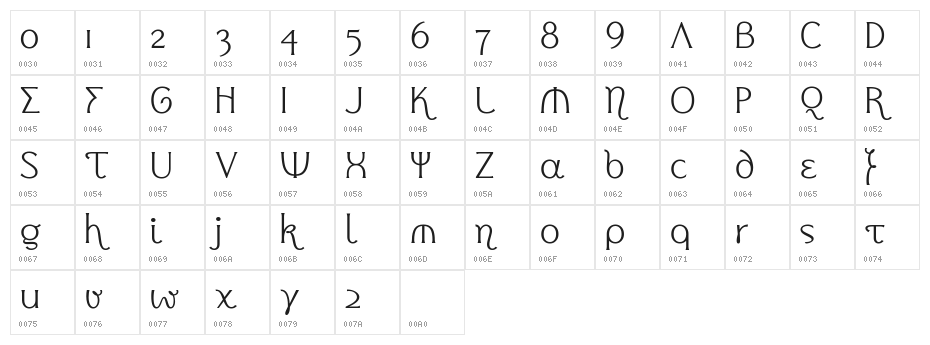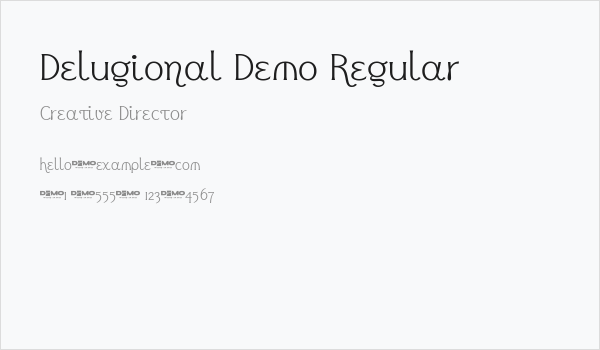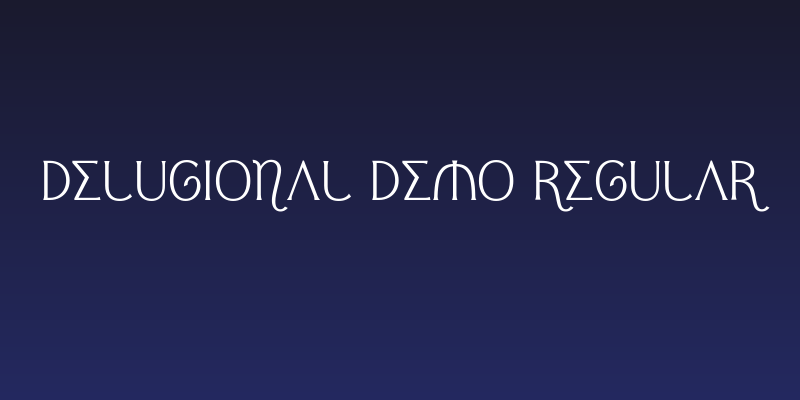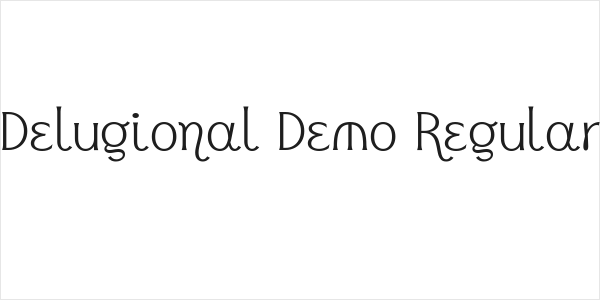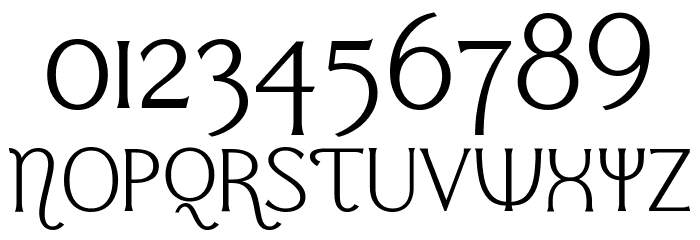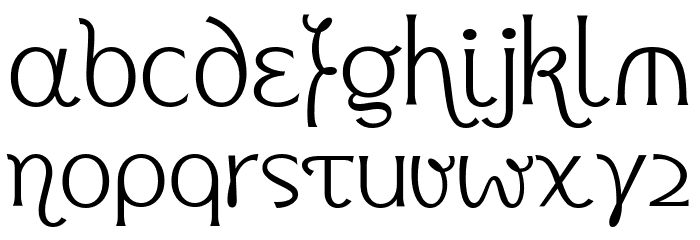
Delugional Demo Regular Font
This font features a unique and artistic style, combining elements of both modern and classic design. The uppercase letters are characterized by their elegant curves and distinct shapes, creating a sense of movement and fluidity. The lowercase letters maintain a consistent style, with some characters exhibiting playful loops and swirls. The numerals are bold and easily readable, while the special characters add a touch of whimsy. Overall, this font exudes creativity and sophistication, making it suitable for a variety of design projects.
| Overall Style | Artistic |
| Use Case | Headlines, Logos, Artistic projects |
| Proposed Projects | Ideal for creative projects such as branding, invitations, posters, and artistic publications. |